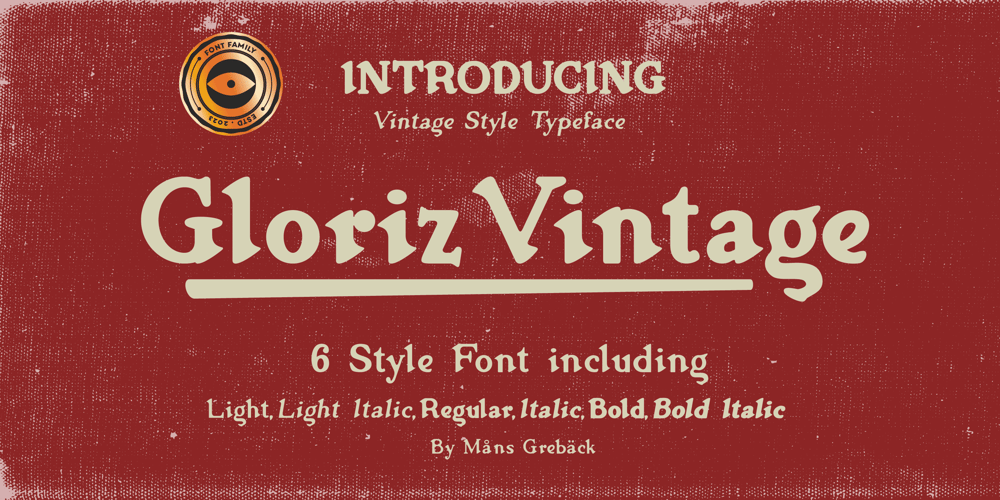
Gloriz Vintage
Gloriz Vintage font
Gloriz Vintage Font Family was designed by Måns Grebäck and published by Mans Greback. Gloriz Vintage contains 6 styles and family package options. Gloriz Vintage is the bold and distinctive retro serif font that adds a touch of rustic charm to any project. Designed by Mans Greback in 2023, this font features rounded edges and a heavy, printed appearance that will give your work a vintage look. Perfect for headlines and logotypes, Gloriz Vintage is the perfect choice for designers looking to add a touch of personality to their work. Don’t miss out on this one-of-a-kind family!The Gloriz Vintage family consists of six high-quality fonts:The three weights Regular, Light and Bold, are each provided as both Upright and Italic styles. The font is built with advanced OpenType functionality and has a guaranteed top-notch quality, containing stylistic and contextual alternates, ligatures and more features; all to give you full control and customizability. It has extensive language support, covering all Latin-based languages, from Northern Europe to South Africa, from America to South-East Asia. It contains all characters and symbols you’ll ever need, including all punctuation and numbers.